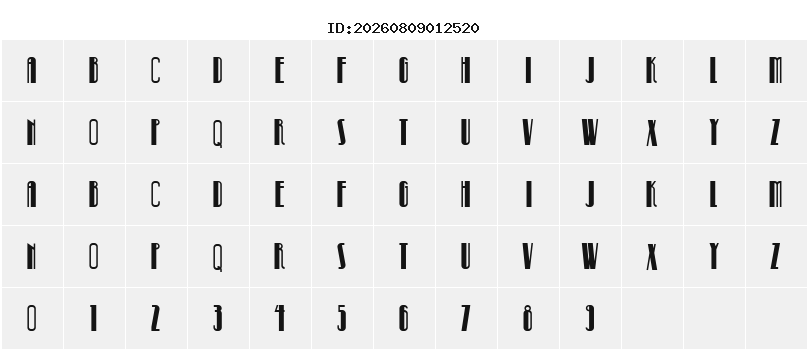
PinballWhizNF Preview
• Font Name: PinballWhizNF
About PinballWhizNF.ttf
PinballWhizNF.ttf is a modern, elegant sans-serif font designed for ultimate readability and visual harmony. Perfect for branding, headlines, web design, and print materials.